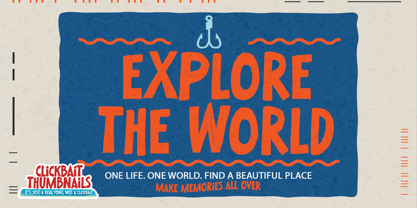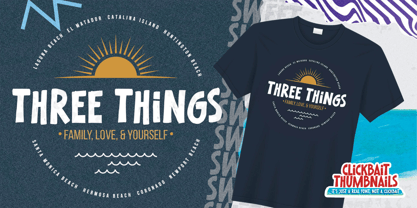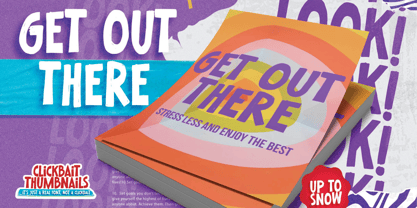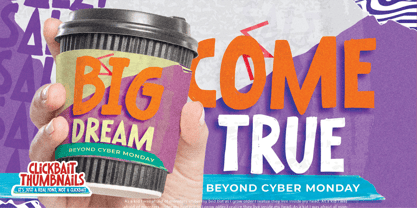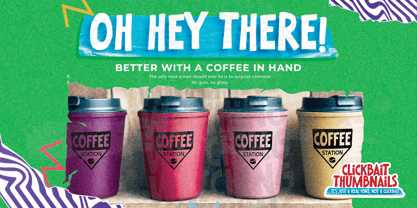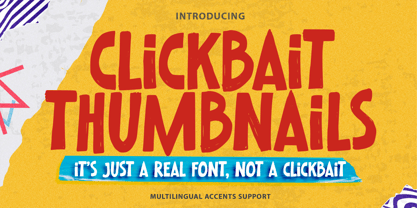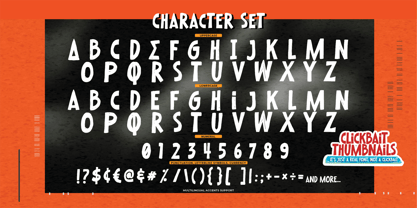
Clickba Italic Thumbnails
by Almarkha Type
The Clickba Italic Thumbnails Font Family was designed by Abdul Malik Wisnu and published by Almarkha Type. Clickba Italic Thumbnails contains 1 styles. More about this family
Here comes a New font,Introducing Clickbait Thumbnails is Unique Font ,This a Sans Serif Style and Cute Cartoon Font,Bold Display , Inspired from cartoon logos of brands that have very strong characteristics, this font is great for your creative projects such as watermark on photography, and perfect for logos & branding, invitation,advertisements,product designs, stationery, wedding designs,label ,product packaging. Clickbait Thumbnails a natural Hand Drawn Sans serif feel. This handmade font will make your design has a beautiful natural touch for each details. It is perfect for any design project as Invitation,logo, book cover, craft or any design purposes,photos, photography overlays, signs, window art, scrapbooking, tags and so much more!